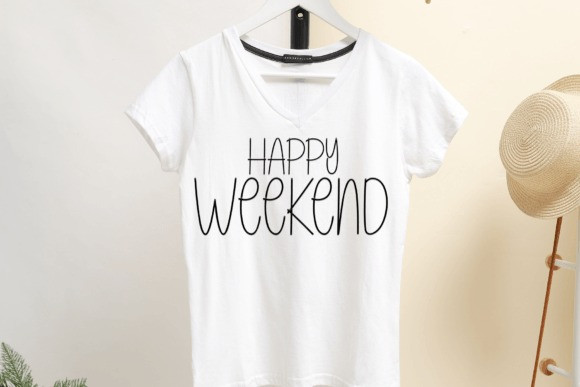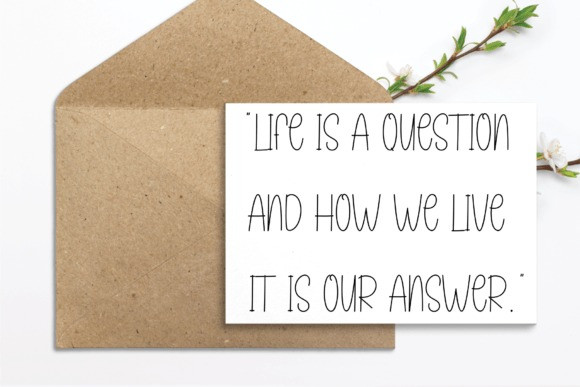
Dreamy Girl Font
Dreamy Girl Font is a sweet and friendly handwritten font. Fresh and casual, this font is ideal for writing wedding invitations, cards, or any other design that might need a lovely touch.